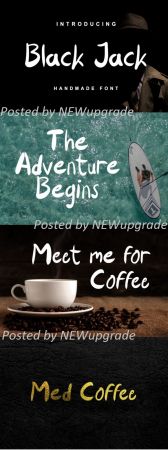
Black Jack is a sweet and friendly handwritten font. Its natural and unique style makes it incredibly fitting to a large pool of designs. The only limit is your imagination!